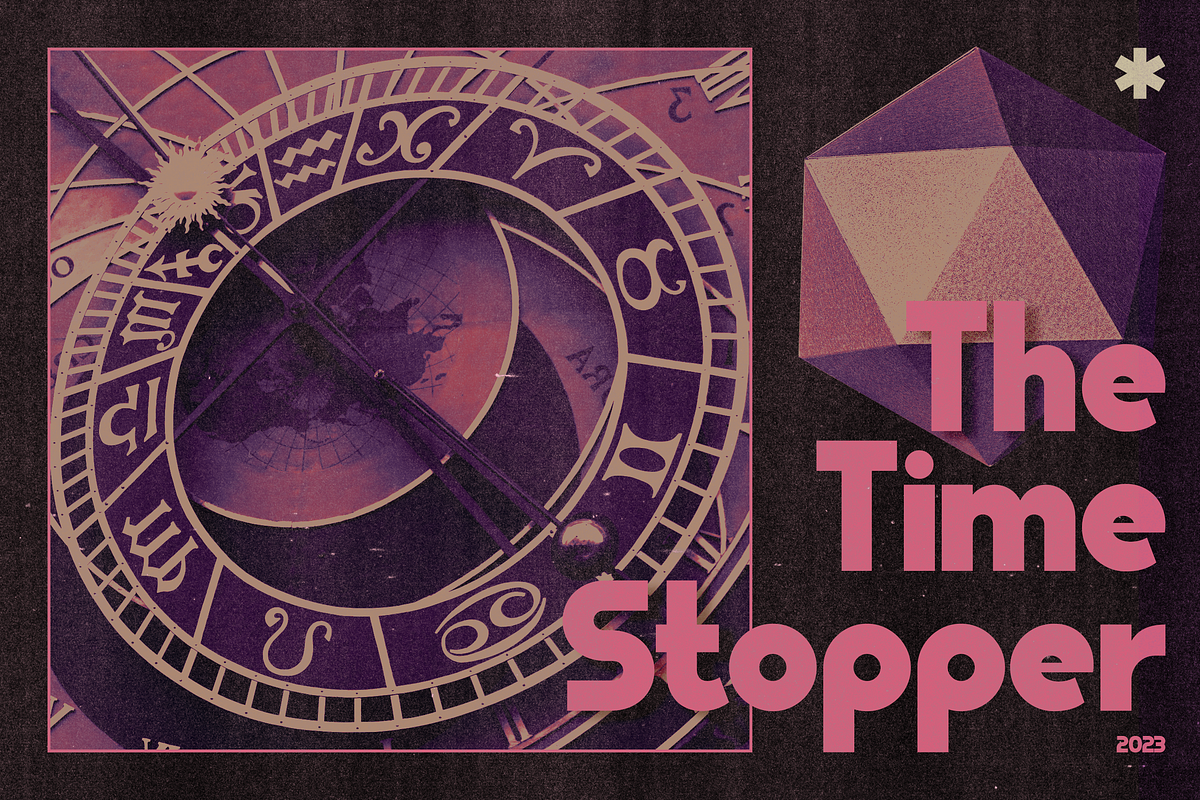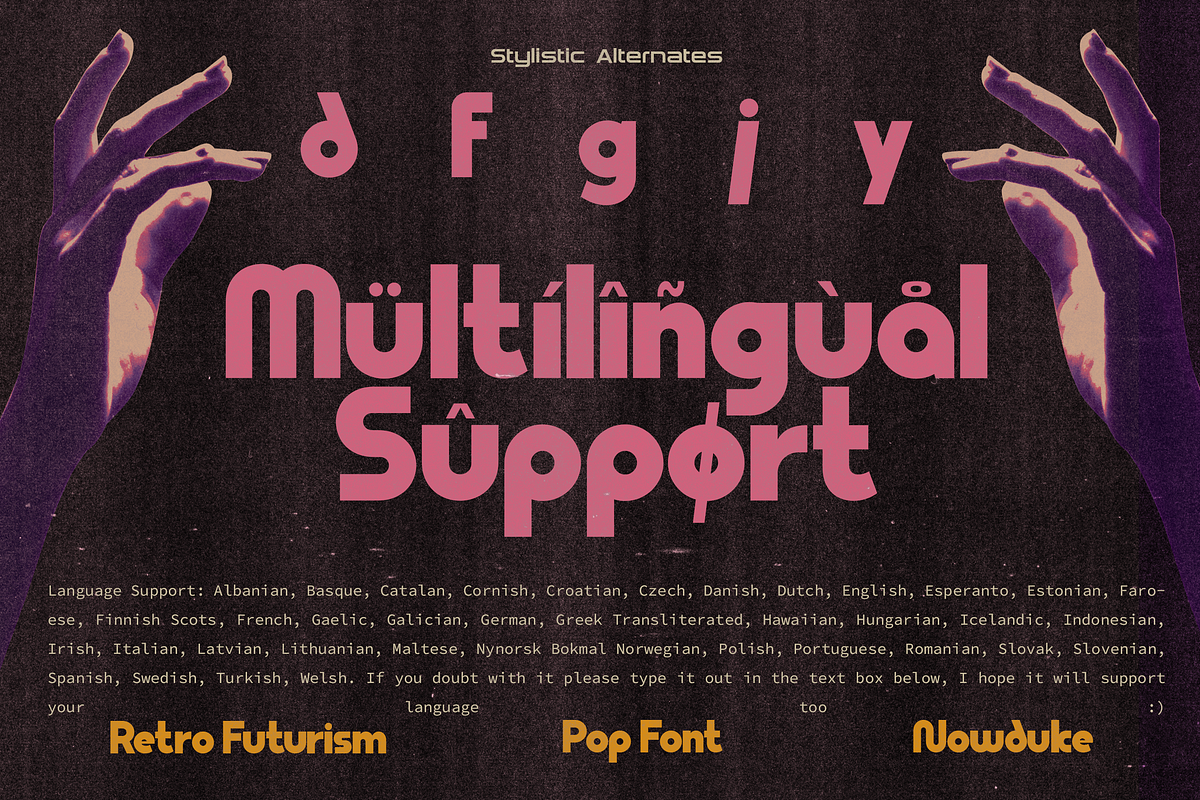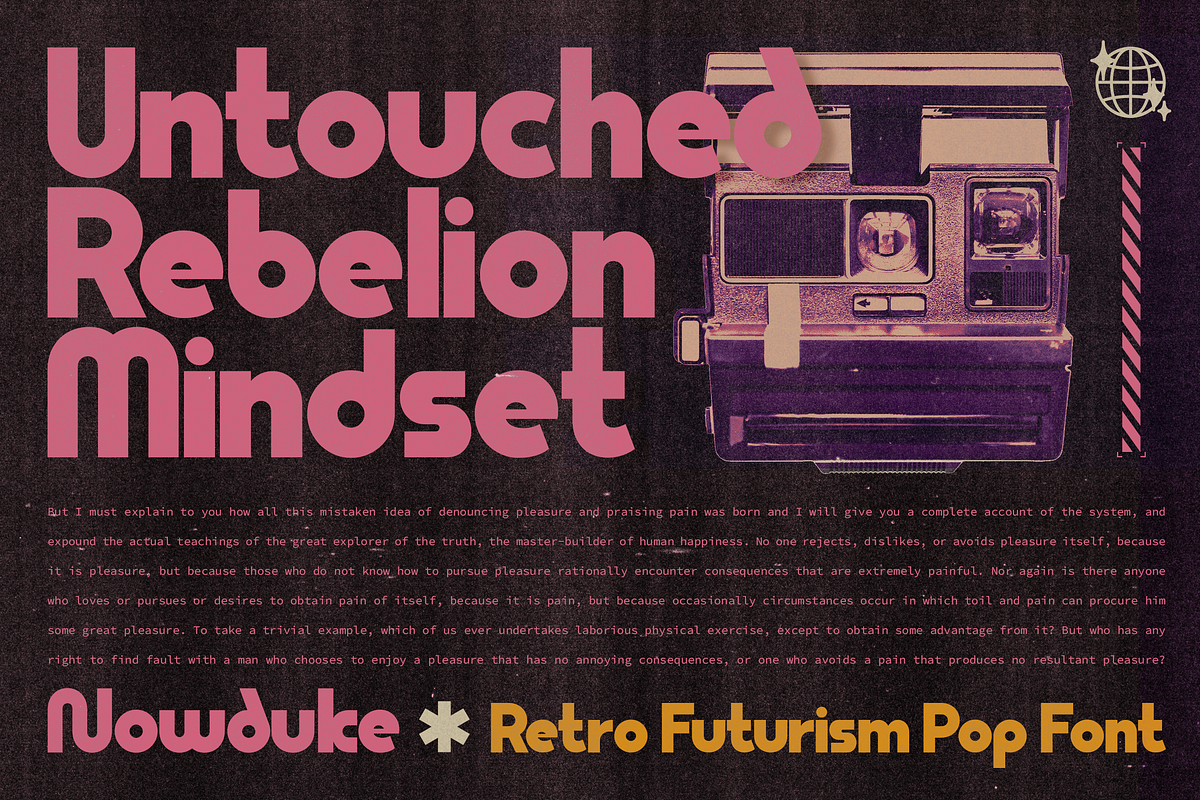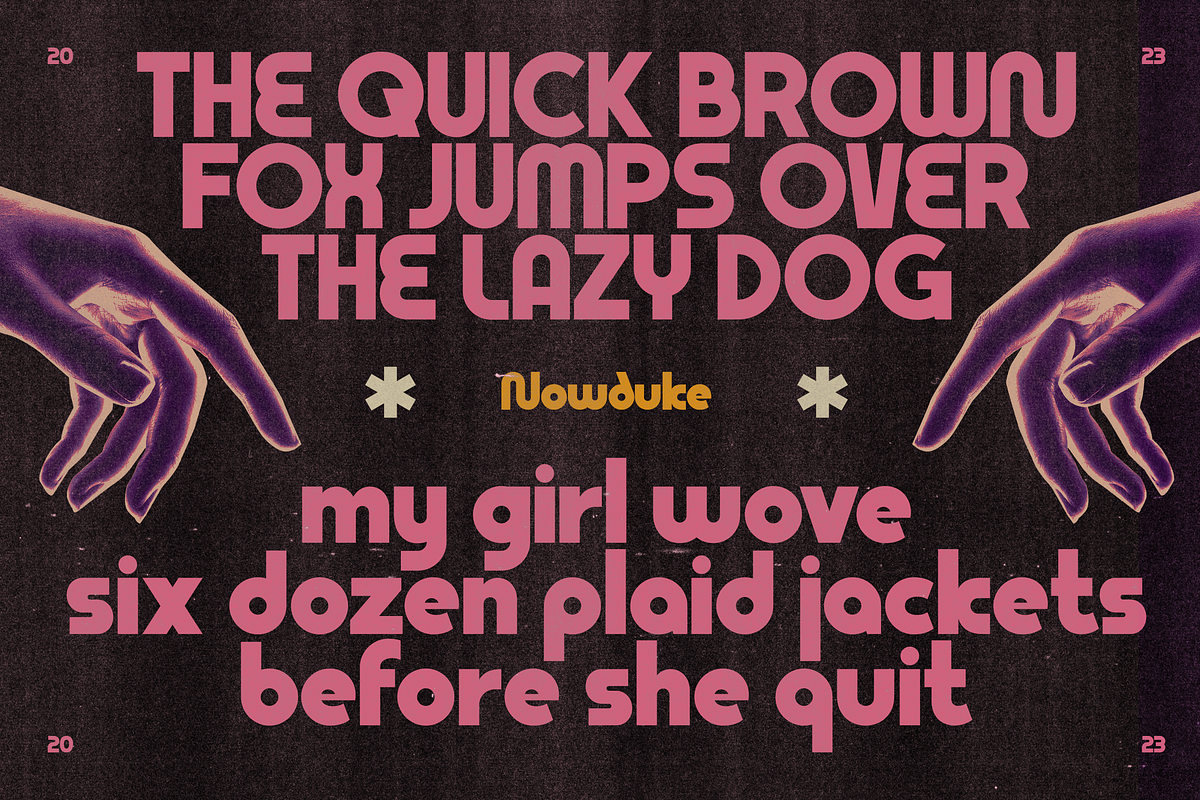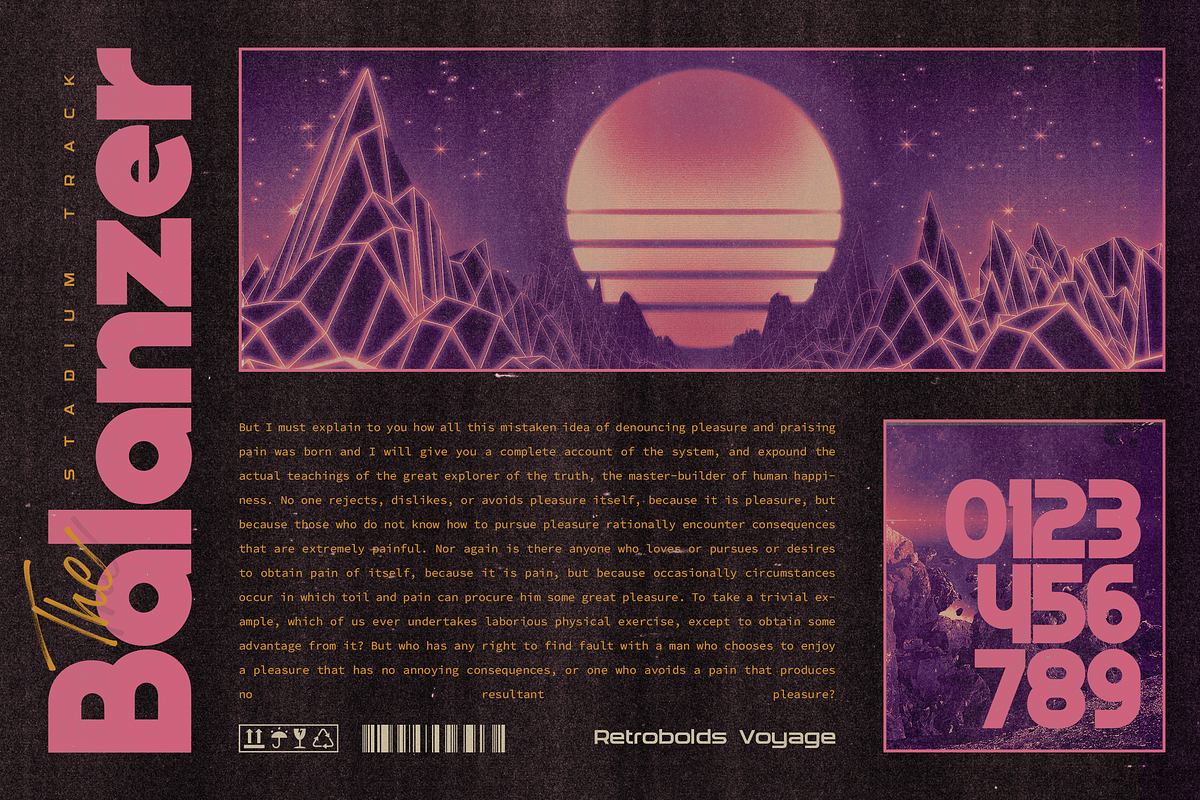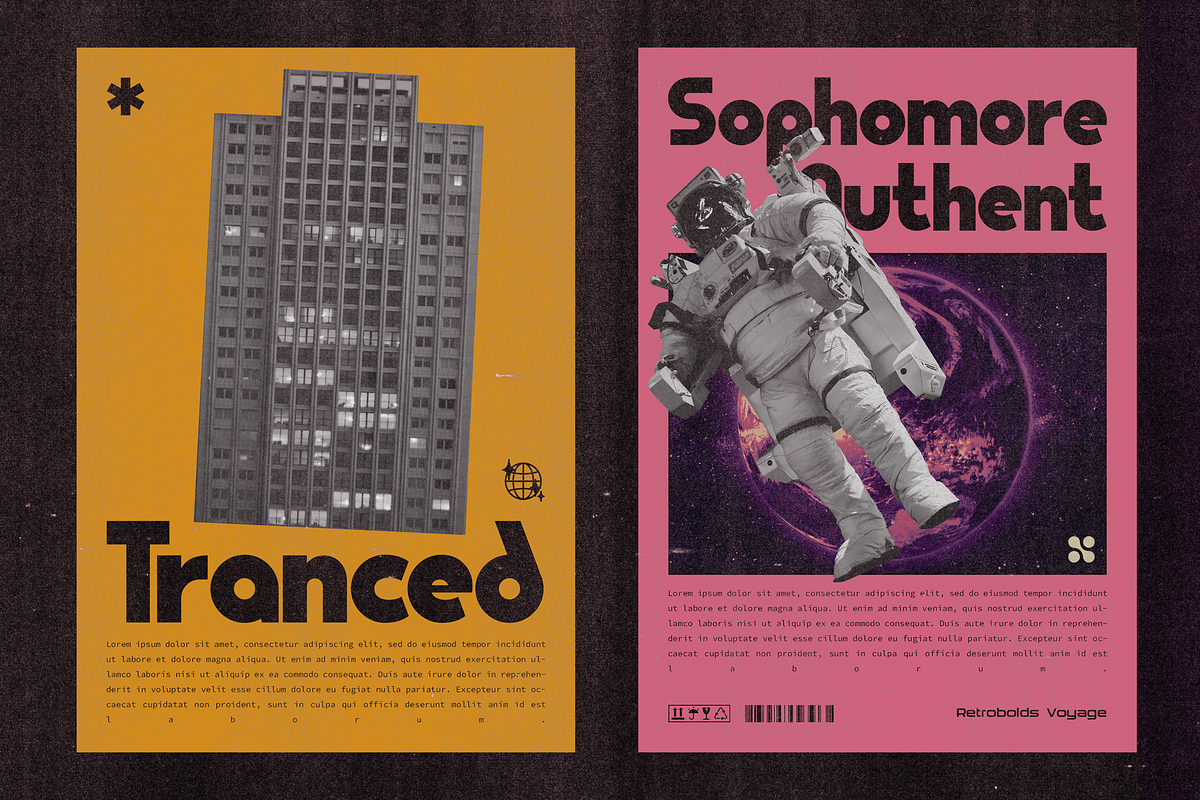
Nowduke - Retro Futurism Pop Fonts
Nowduke is a bold vintage font. Inspired by the rise of the Retro-Futurism trend in the digital industry nowadays.
The undeniable invasion in every industry makes it a big trigger I can say, to bring this pop font to rise in this universe.